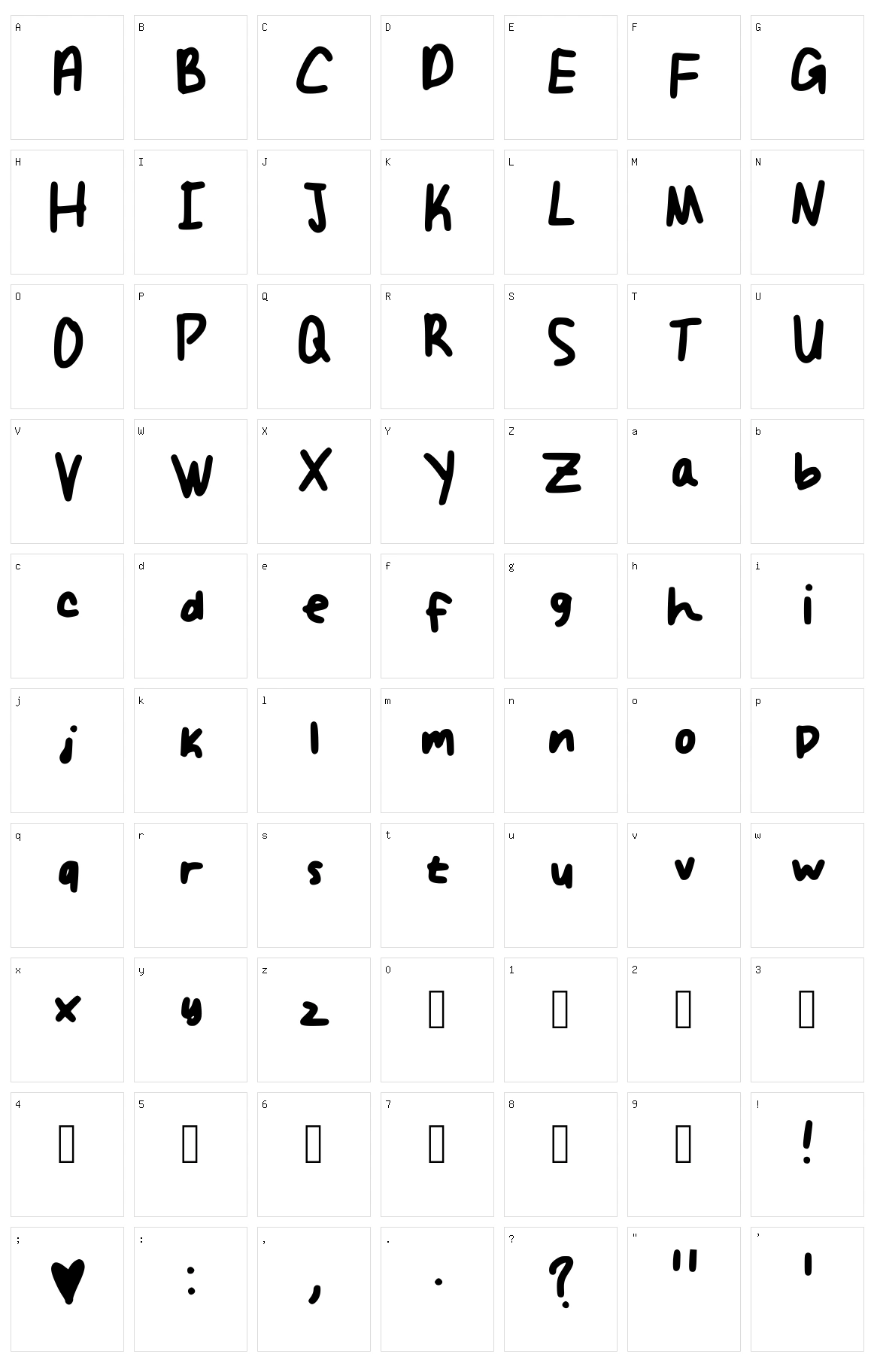
The free font Sunshine Folk is carefully designed by Lara Russell, showcasing a thoughtful balance of creativity and usability and falls under the Script font style. When you download the ZIP file, it contains only 7.48 KB of font files, making it lightweight and quick to download. Please review the license details below to understand permitted usage and distribution rights. If license information is not available, we recommend using this font for personal projects only or contacting the author directly for commercial usage permissions.